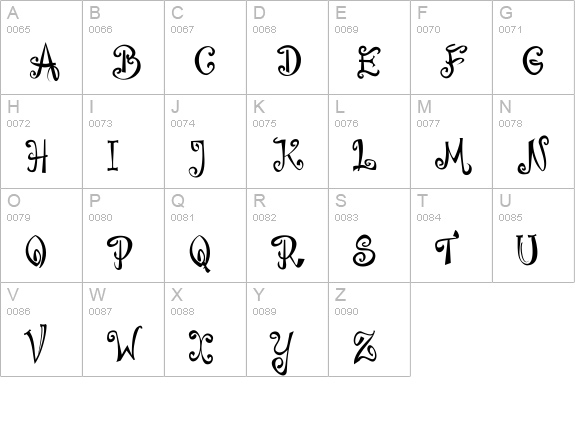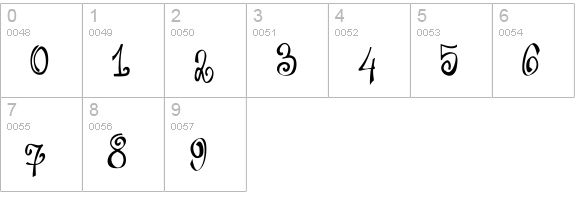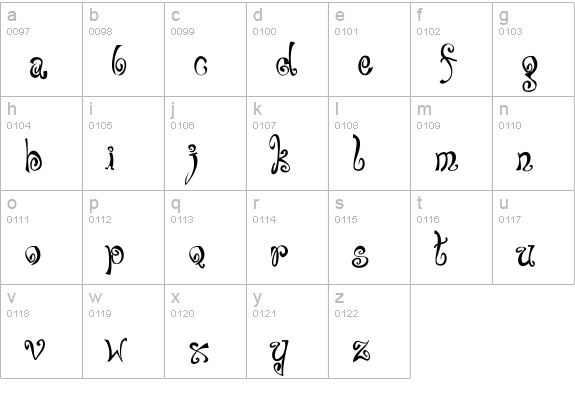
Bajareczka Font Details
Bajareczka font is a delightful and whimsical typeface that exudes charm and playfulness. With its unique and quirky design, this font is perfect for projects that require a touch of fun and creativity. The rounded edges and flowing lines give Bajareczka font a friendly and approachable feel, making it ideal for a wide range of design applications. What makes Bajareczka font even more appealing is that it is available for free download at FontsMarket.com. This means that you can easily access this charming font and incorporate it into your projects without any cost. Whether you're designing posters, invitations, or social media graphics, Bajareczka font is sure to add a touch of whimsy and personality to your creations. Don't miss out on the opportunity to enhance your designs with the playful charm of Bajareczka font. Download it for free today at FontsMarket.com and let your creativity shine!